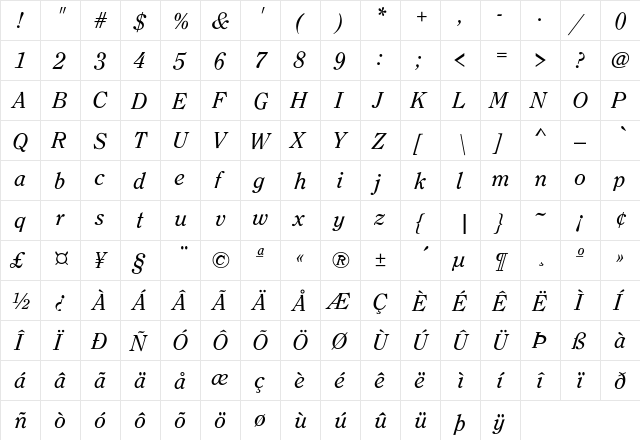
CasualSerif-Italic Regular Font Preview
CasualSerif-Italic Regular
CasualSerif-Italic Regular Font Details
Design Context for CasualSerif-Italic Typeface
CasualSerif-Italic carries the refined structure of traditional serif typography, with bracketed terminals and considered proportions that communicate credibility and craft. Its italic angle brings a sense of urgency and motion to the letterforms.